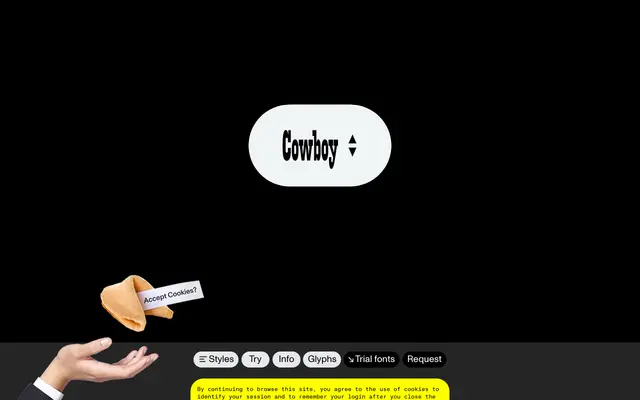
ABC Cowboy
ABC Cowboy specimen from Dinamo Typefaces
A western-style slab serif with Dinamo butterfly serifs, 643 glyphs and 11,217 kerning pairs, drawn for headlines.
A western-style slab serif from Dinamo carrying the studio's signature butterfly serifs, drawn as a single Regular cut with no alternates. The character set runs to 643 glyphs balanced by 11,217 kerning pairs, with 397 accented characters covering more than 127 languages, plus subscripts, superscripts and arbitrary fractions. Built for headline and packaging work where a saloon-era slab usually arrives sloppily produced.
Dinamo describes Cowboy as a straightforward western-style slab serif with 643 glyphs, 11,217 kerning pairs and 397 accented characters covering more than 127 languages, featuring Dinamo butterfly serifs and zero alternate letterforms.